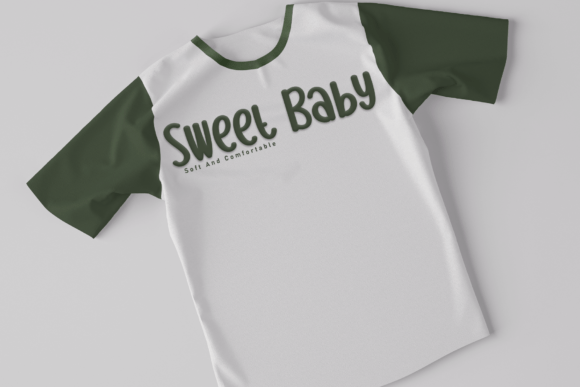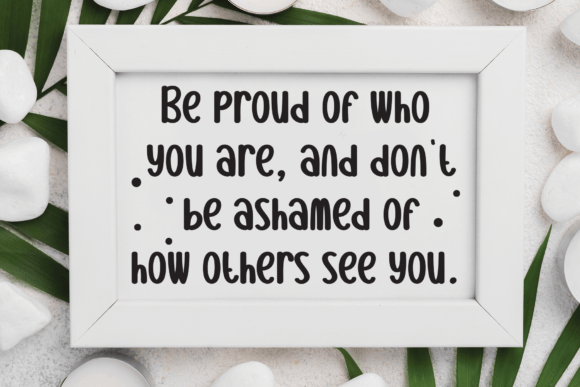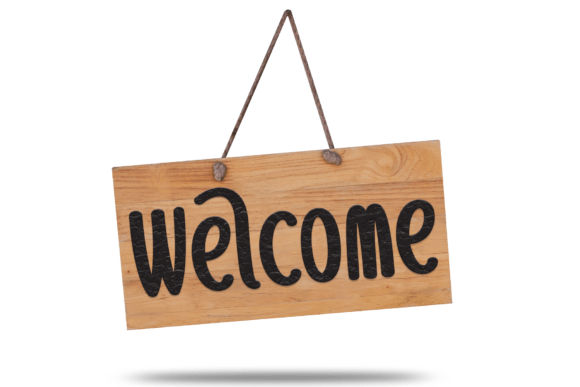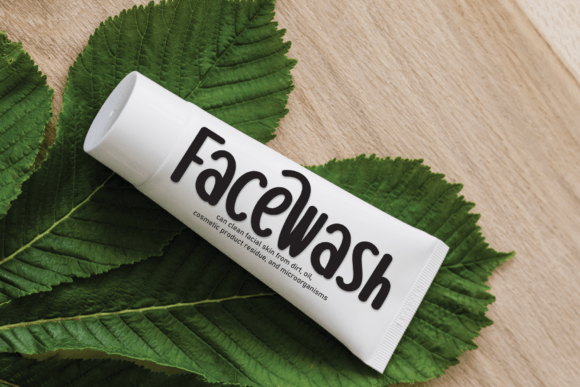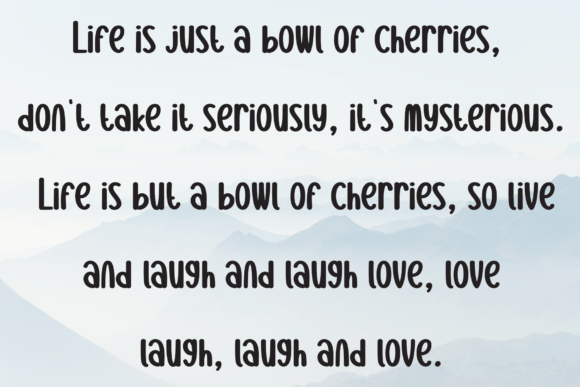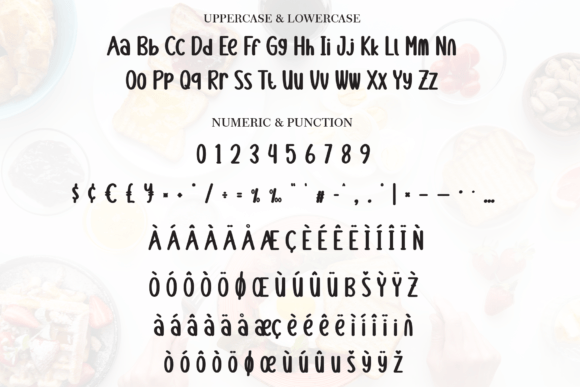
The Sweet Charm of Breakfast Font: A Designer’s Delight
I’ll never forget the time I was working on a wedding invitation project, and my client asked for a font that was “fun, yet elegant.” I scoured the internet, tried out a dozen fonts, but nothing seemed quite right. That was until I stumbled upon Breakfast Font. This sweet and friendly handwritten display font won my heart, and I’ve been hooked ever since! 💕
So, what makes Breakfast Font so special? Let’s dive into the good stuff! 😊
• ✨ Cute and fun: Breakfast Font is perfect for adding a playful touch to your designs, from wedding invitations to social media graphics.
• ✅ Elegant yet approachable: This font strikes the perfect balance between sophistication and friendliness, making it ideal for a wide range of projects.
• 💫 Highly versatile: Use it for titles, headings, or even body text – Breakfast Font adapts seamlessly to different design contexts.
Of course, no font is perfect, and Breakfast Font has a few minor quirks:
• 🤔 Limited use in small text sizes: Due to its playful, handwritten nature, Breakfast Font can become difficult to read in very small text sizes.
• ⚠️ Occasional kerning issues: As with many display fonts, you may need to adjust kerning manually to achieve optimal results.
4. Experiment with OpenType features, such as stylistic alternates, to add visual interest.
4. Explore the font’s glyphs and OpenType features to create stunning text effects.
The Story Behind Breakfast Font
While the origins of Breakfast Font are shrouded in mystery, it’s easy to imagine a designer sipping coffee and brainstorming ideas for the perfect handwritten font. Perhaps they wanted to create a font that would evoke feelings of warmth and happiness – and thus, Breakfast Font was born! ☕️
What type of projects is Breakfast Font best suited for? Wedding invitations, cards, social media graphics, and any design that requires a playful, yet elegant touch.